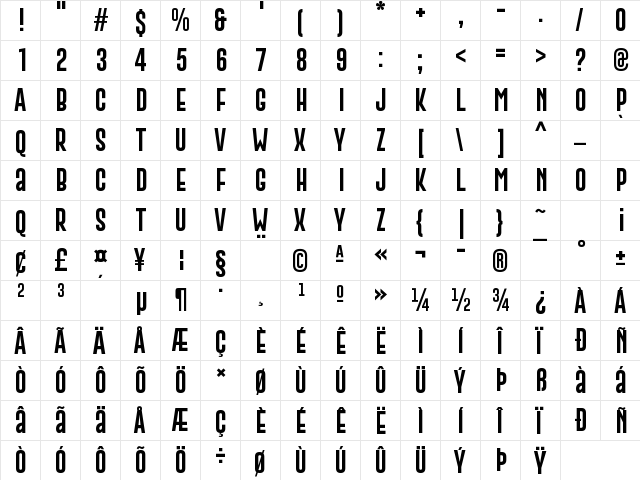
Gobold Extra2 Regular
| Foundry | Situjuh Font |
| Designer | Situjuh Nazara |
Design Context for Gobold Extra2 Typeface
Gobold Extra2 takes a measured approach to typography — its balanced proportions and neutral character make it a reliable workhorse for both digital and print work. The heavy weight commands attention and anchors typographic hierarchies.